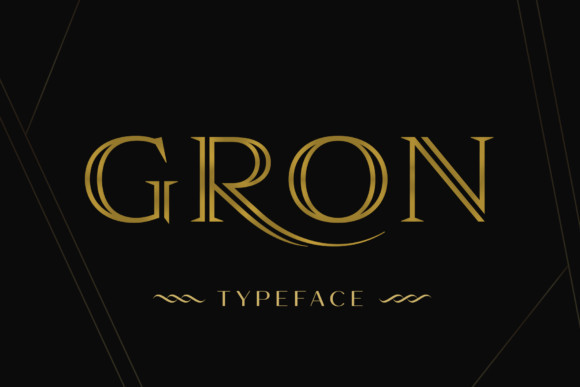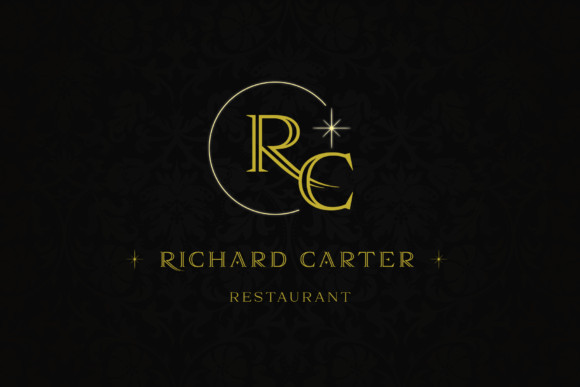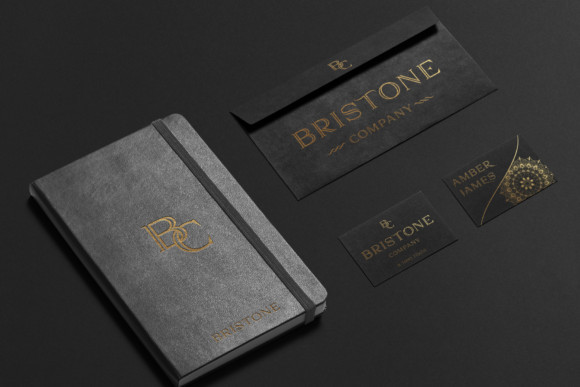
Gron Font
Gron is a beautiful and elegant serif font. This font is PUA encoded which means you can access all of the cute glyphs and swashes with ease! It also features a wealth of special features including alternate glyphs and ligatures. It will elevate a wide range of design projects to the highest level, be it branding, headings, wedding designs, invitations, signatures, logos, labels, and much more!